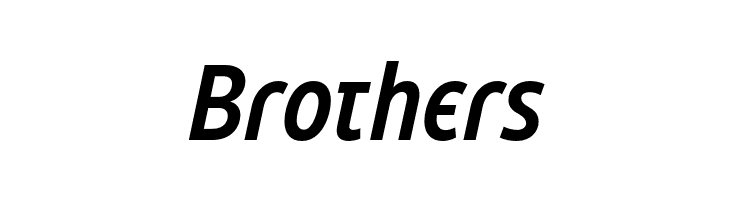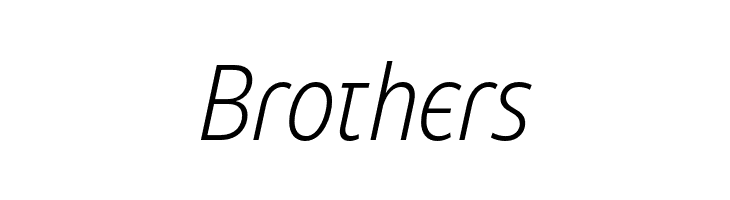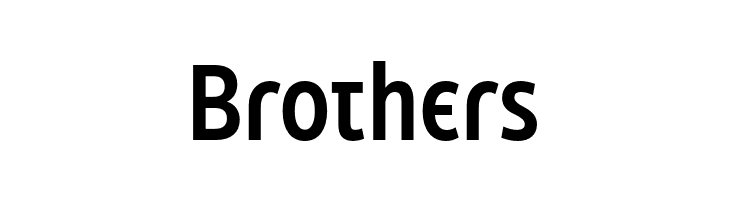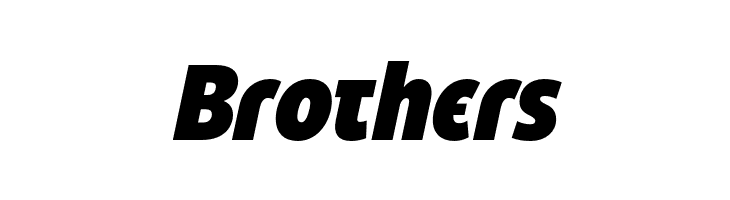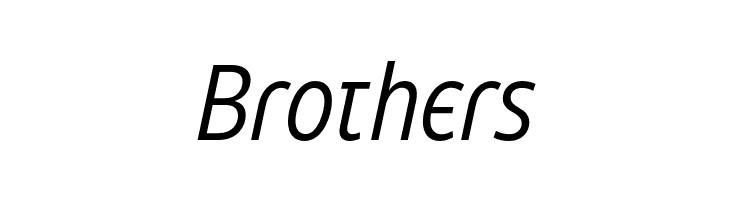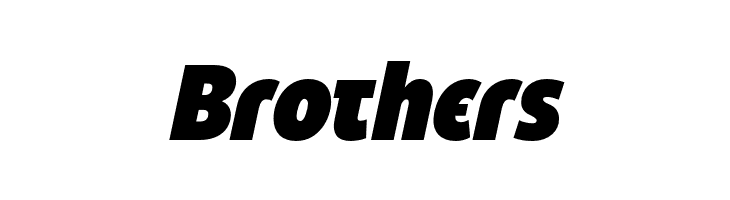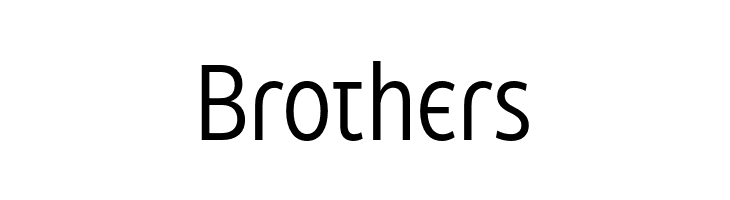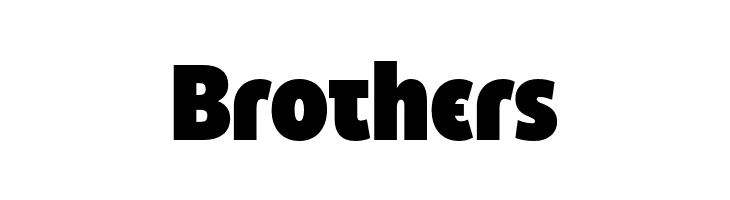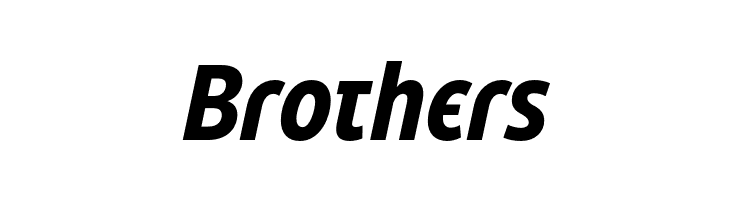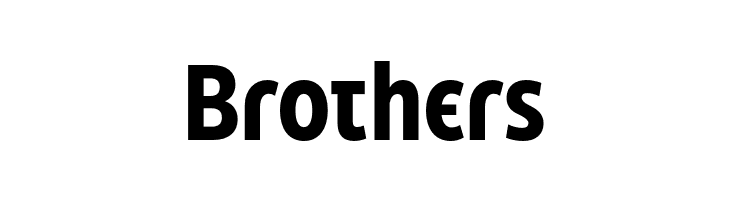
A bold, modern font with geometric influences and rounded edges.
A sleek, minimalistic font with thin, geometric lines and a modern aesthetic.
A sleek, modern, and elegant italic font with a minimalist design.
A bold, geometric font with consistent stroke widths and a modern style.
A bold, heavy italic font with a modern and dynamic style.
A modern, italic font with clean lines and a dynamic slant.
A modern, geometric font with clean lines and uniform stroke width.
A sleek, modern, and slightly italicized font with a light, airy feel.
A modern, geometric sans-serif font with rounded edges and consistent stroke width.
A modern, italic font with clean lines and a dynamic style.
A modern geometric sans-serif font with rounded edges and consistent stroke width.
A modern, geometric font with consistent stroke width and smooth curves.
A modern, italic font with clean lines and elegant curves.
A thin, modern font with clean lines and geometric shapes.
A sleek, thin, italicized font with a modern and minimalist design.
A bold, condensed font with a geometric and modern style, perfect for impactful headlines.
A bold, condensed, and slightly italicized font with a modern and dynamic style.
A bold, modern, and condensed font with rounded edges for impactful design.
A bold, italic, and condensed font with a modern and dynamic style.
A modern, condensed font with rounded edges and a geometric style.
A modern, condensed italic font with bold, rounded characters.
A bold, condensed font with a modern and impactful design.
A bold, condensed, and italic font with high contrast and tight spacing.
A modern, condensed, and slightly italic font with consistent stroke thickness.
A modern, condensed sans-serif font with a sleek and minimalist design.
A sleek, modern, and condensed italic font with a light and airy feel.
A modern, geometric sans-serif font with a clean and compact design.
A modern, italicized font with medium contrast and a slightly condensed style.
A modern, condensed sans-serif font with uniform stroke width and geometric shapes.
A modern, condensed, and slightly italicized font with smooth curves.
A modern geometric sans-serif font with a clean and balanced design.
A modern, thin, and geometric font with elegant and minimalistic design.
A sleek, modern, and italicized font with thin strokes and a condensed style.